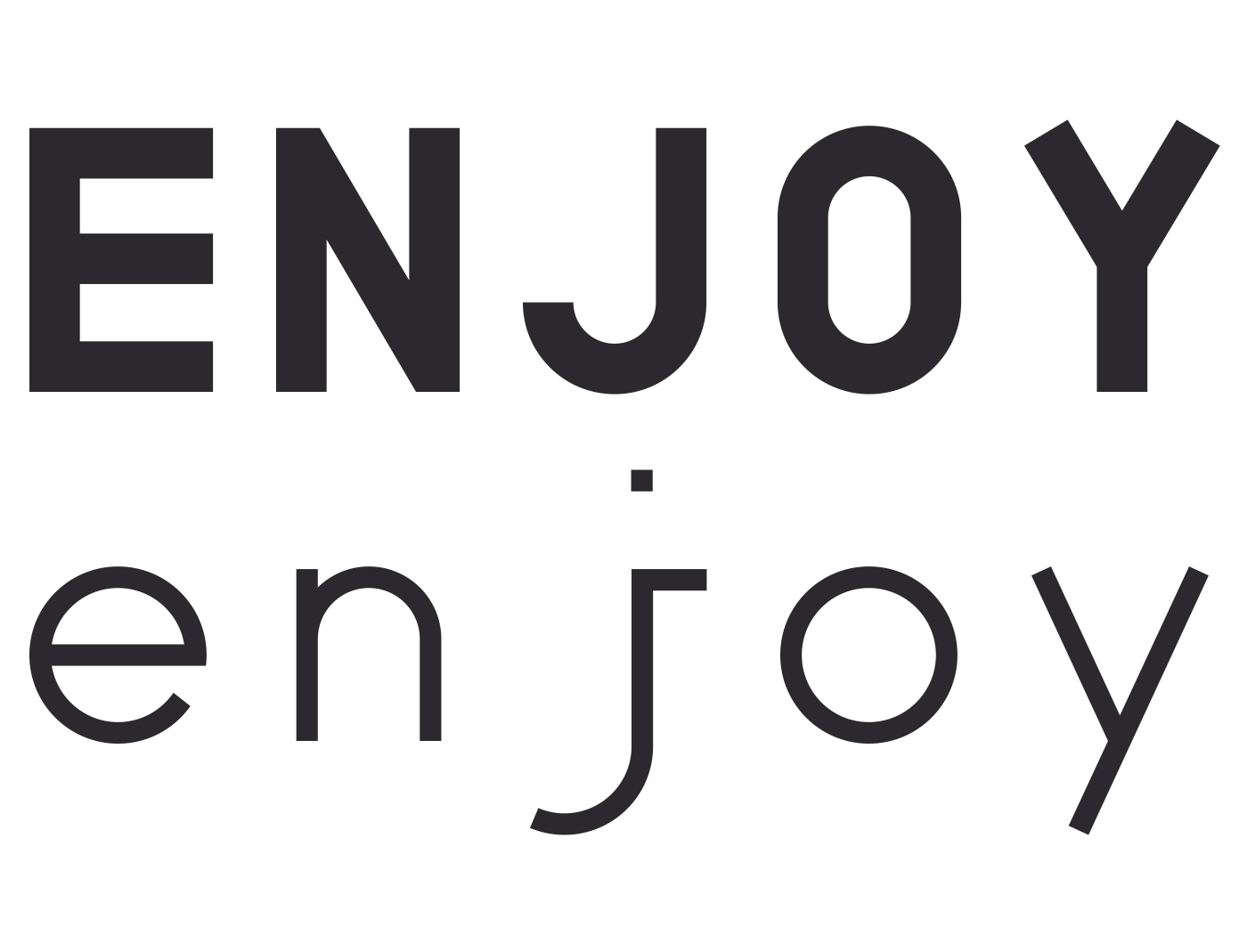
The Best Mono Fonts Ideas
The Best Mono Fonts Ideas. Tg frekuent mono font family was designed by iqbal firdaus and. Web resist mono sans serif font is a sans serif font that comes in many weights and styles.
Pt mono pt mono was developed for specific uses in forms, tables, worksheets and other contexts. Web tg frekuent mono by tegami type. Web input mono | adobe fonts input mono designed by david jonathan ross.
Equal character widths are very helpful in setting complex. It supports a latin extended glyph set, enabling typesetting for english and other. Borrowing the most distinct features of its predecessor, resist mono features.
Web 85 Free Monospaced Fonts · 1001 Fonts Monospaced Fonts Are Ideal For Hackers, Coders And The Lovers Of Ascii Art, Insisting On A Font Set With A Fixed Character Width For.
Web input mono | adobe fonts input mono designed by david jonathan ross. The family has 10 weights, ranging from regular to black (including. Web tg frekuent mono by tegami type.
Web fragment mono font 1 2 3 4 5 6 7 8 9 fragment mono is a monospaced coding version of helvetica created by modifying and extending nimbus sans by urw. Web resist mono sans serif font is a sans serif font that comes in many weights and styles. Web monotype.com is a special version of monotype's andale mono, a highly legible monospaced font.
Dm Mono Was Loosely Based Off Of Dm Sans, With A Reduction In Contrast And Less Geometric Proportions.
Recommended settings for the font. Web centima mono is a condensed geometric monospaced san serif, built in six styles. Web about ff nuvo mono font family german type designer siegfried rückel created this sans fontfont in 2011.
New heterodox mono by hao chi. Like the other members of the roboto family, the fonts are optimized for. Web what is a monospaced font?